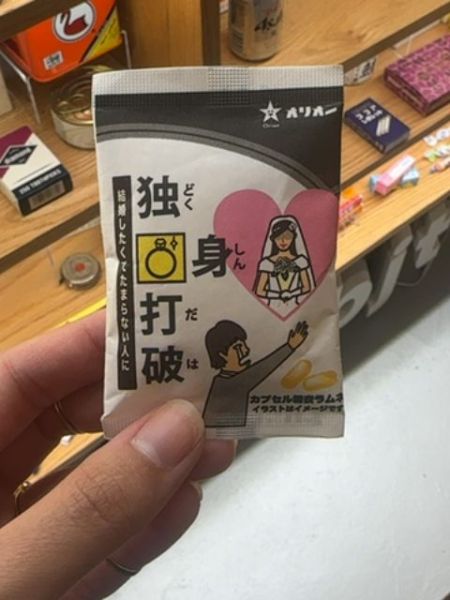
Vibram Capsule
A health supplement capsule intended to support personal well-being and vitality.
Country of Origin
Japan
Typography
The typography features a mix of bold and regular weight kanji characters, reflecting both a sense of tradition and modernity. The use of contrasting font sizes helps to emphasize key elements of the product's message, while the handwritten style of some characters adds a personal touch.
Packaging
The packaging features a sachet with a bold, graphic design and a playful illustration of a bride and groom, suggesting themes of marriage and commitment. The color scheme primarily uses neutral and pastel tones, with a prominent heart symbol conveying the product's focus on relationships.
Facts
- The product is marketed towards individuals seeking to get married.
- It includes illustrations that emphasize marriage-related themes.
- Capsules are presented as the primary form of the product.